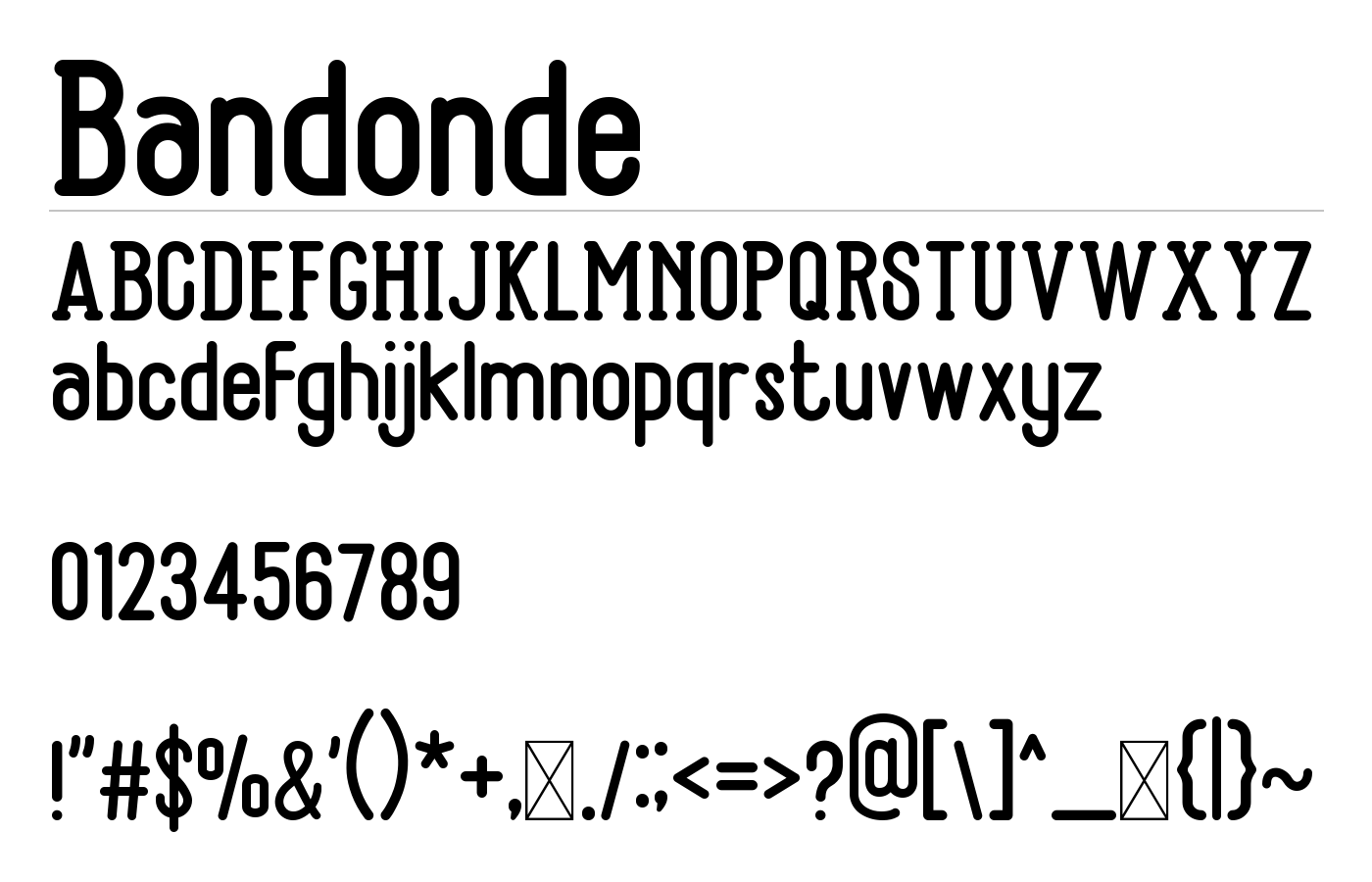
Bandonde is a narrow, tall sans serif font characterized by its clean, rounded edges and uniform stroke weight, giving it a modern yet approachable feel. The font's condensed structure and high x-height make it highly legible, perfect for headlines and branding that need a distinct, playful personality without sacrificing clarity. Its friendly and contemporary style suits creative projects, editorial headlines, and packaging that aim for a bold but inviting look.
Bandonde Font
About Bandonde Font